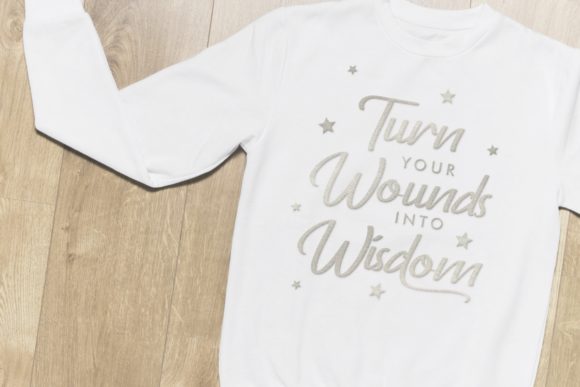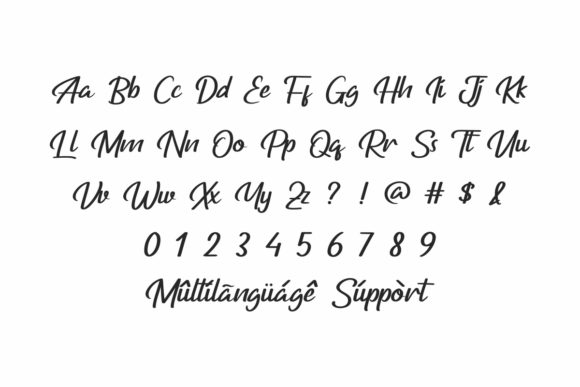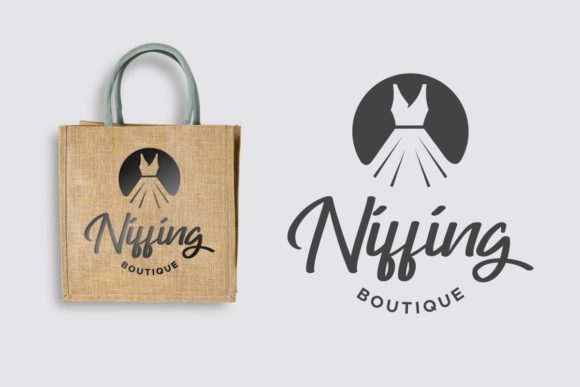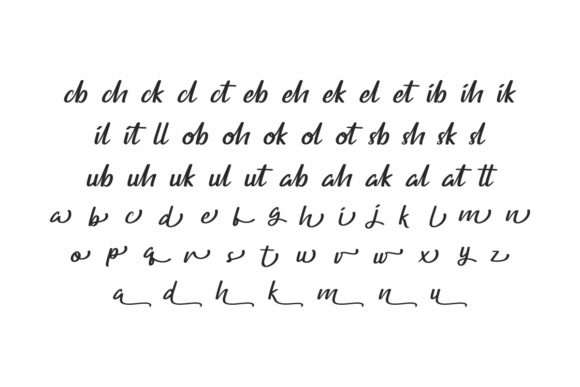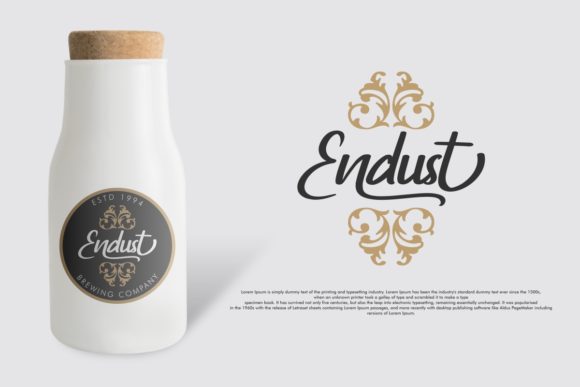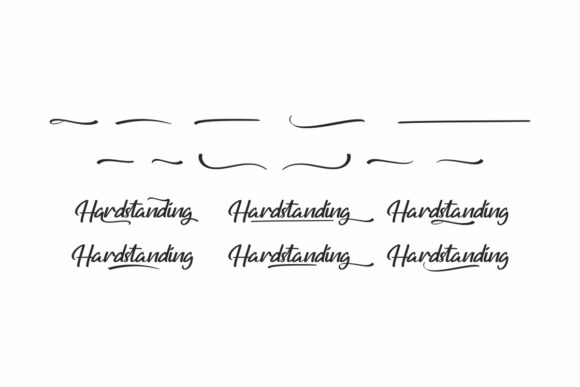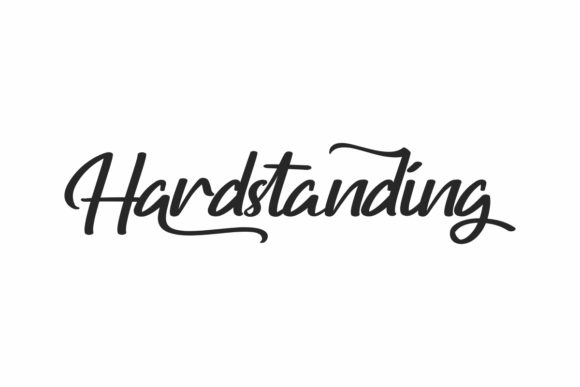
Introducing Hardstanding Font: A Simple and Elegant Handwritten Font for Crafting Projects
Are you a designer or crafter looking for a font that adds a personal touch to your projects? Look no further than Hardstanding Font, a beautiful and elegant handwritten font that’s perfect for a variety of crafting projects. In this article, we’ll take a closer look at Hardstanding Font, its features, and how you can use it to elevate your designs.
What is Hardstanding Font?
Hardstanding Font is a simple and elegant handwritten font that’s designed to bring a touch of personality to your crafting projects. Whether you’re working on a DIY craft, a scrapbooking project, or a digital design, Hardstanding Font is the perfect choice. Its clean and flowing lines make it easy to read and visually appealing, making it perfect for a wide range of applications.
Key Features of Hardstanding Font
So, what makes Hardstanding Font so special? Here are some of its key features:
• Handwritten touch: Hardstanding Font has a beautiful, handwritten feel that’s perfect for crafting projects that require a personal touch.
• PUA encoded: This font is PUA (Private Use Area) encoded, which means you can access all of the glyphs and swashes with ease. This makes it easy to customize your designs and add unique touches.
• Elegant and simple: Hardstanding Font has a clean and elegant design that’s perfect for a wide range of applications, from digital designs to handmade crafts.
How to Use Hardstanding Font in Your Crafting Projects
Hardstanding Font is a versatile font that can be used in a wide range of crafting projects. Here are some ideas to get you started:
• Scrapbooking: Add a personal touch to your scrapbooking projects with Hardstanding Font. Use it to title your pages, add journaling, or create custom embellishments.
• DIY crafts: Hardstanding Font is perfect for DIY crafts, such as card making, gift tagging, and other paper crafts.
• Digital designs: Use Hardstanding Font in your digital designs, such as social media graphics, blog posts, and digital art.
Tips for Getting the Most Out of Hardstanding Font
Here are some tips for getting the most out of Hardstanding Font:
• Experiment with different sizes and colors: Hardstanding Font looks great in a variety of sizes and colors. Experiment with different combinations to find the one that works best for your project.
• Use the glyphs and swashes: Take advantage of the PUA encoding and use the glyphs and swashes to add unique touches to your designs.
• Pair it with other fonts: Hardstanding Font pairs well with other fonts. Experiment with different combinations to find the one that works best for your project.
Hardstanding Font is a beautiful and elegant handwritten font that’s perfect for a wide range of crafting projects. With its clean and flowing lines, PUA encoding, and simple design, it’s the perfect choice for designers and crafters looking to add a personal touch to their projects. Whether you’re working on a scrapbooking project, a DIY craft, or a digital design, Hardstanding Font is sure to impress.